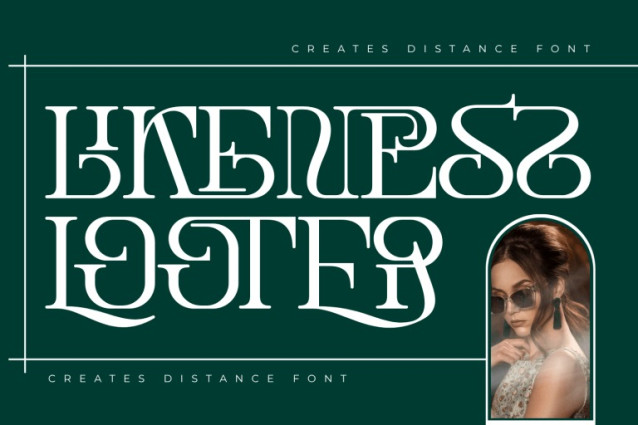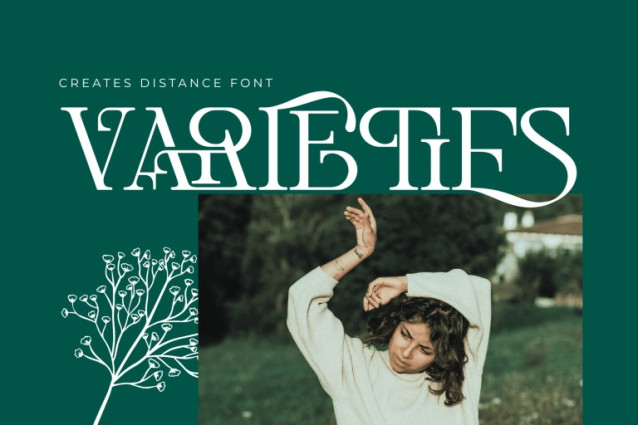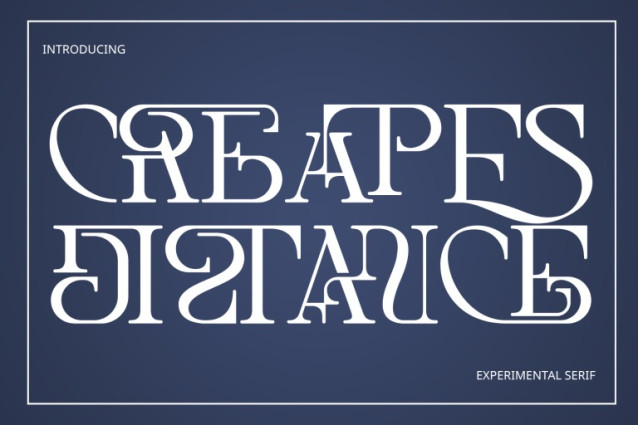
CREATES DISTANCE – VINTAGE LUXURY FONT is a decorative serif display font that blends classic elegance with intricate modern detailing. Built on a refined serif structure, this typeface features beautifully crafted ligatures and interlocking letterforms that create a rich and artistic typographic composition. With its layered connections and distinctive overlaps, CREATES DISTANCE transforms simple text into a visually captivating design element. The balanced contrast and ornamental touches add depth and sophistication, making it ideal for editorial layouts, luxury branding, high-end logos, and creative headlines.
🔤Features:
Uppercase & Lowercase Letters
Around 100 Special Ligatures & Alternates
Accented Characters for multilingual support
🔤About 100 ligatures combined with Stylistic Alternates Font:
AC AD AL AN AR AS AT AU AV BE CA CE CH CO CT DE DI EA EC ED EE EL EM EN EP ER ES ET FE FO FR GE HA HE HI HO IE IC IL IN IO IR IS IT JU KE LA LE LI LL LO LY MA ME MI NC ND NE NG NO NT NS OC OF OM ON OO OP OR OT OU OW PA PR RA RD RE RI RO RS RT SE SH SI SO SS ST TA TE TH TI TO TR TT UM UN UR VE WI WO